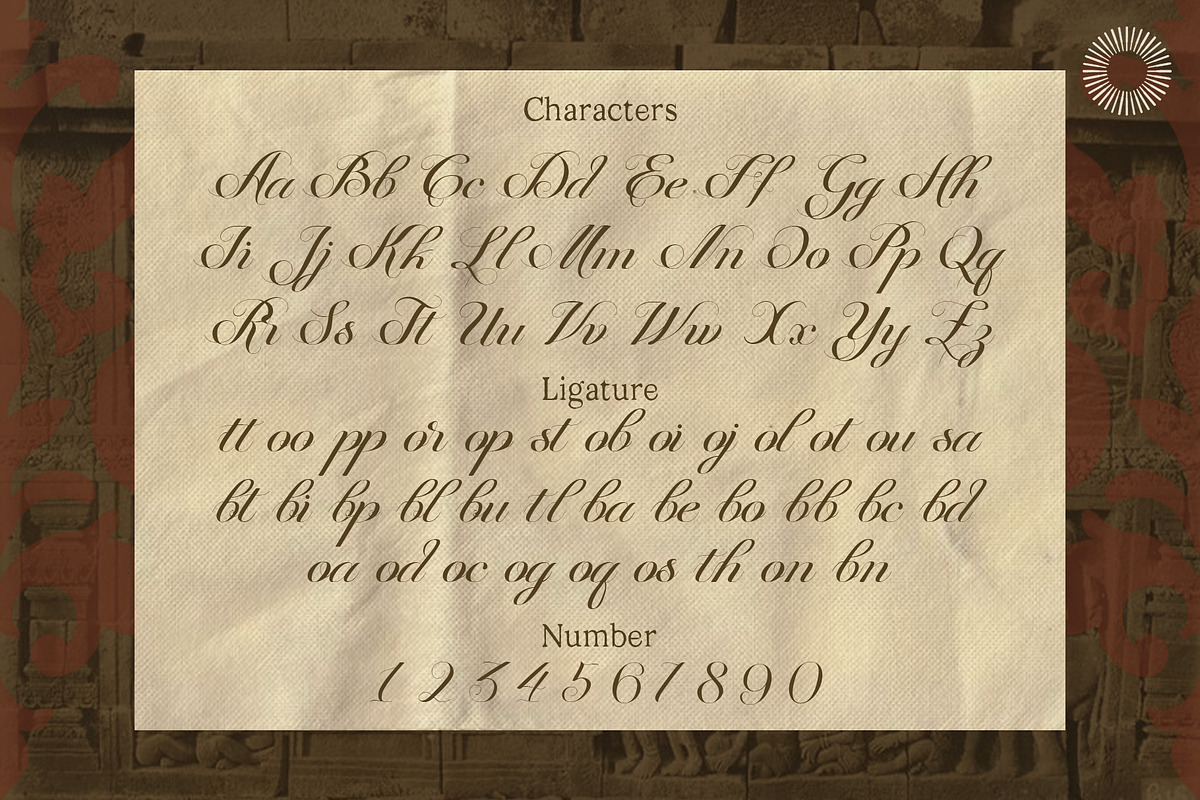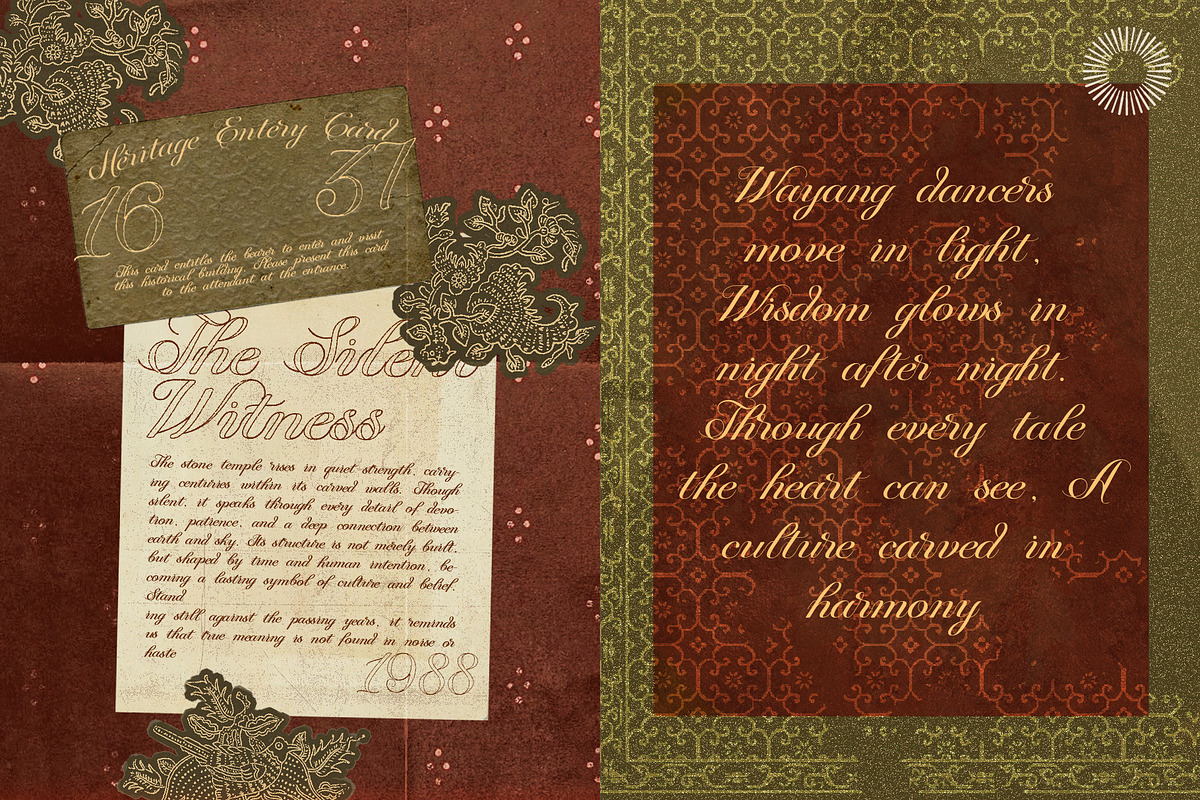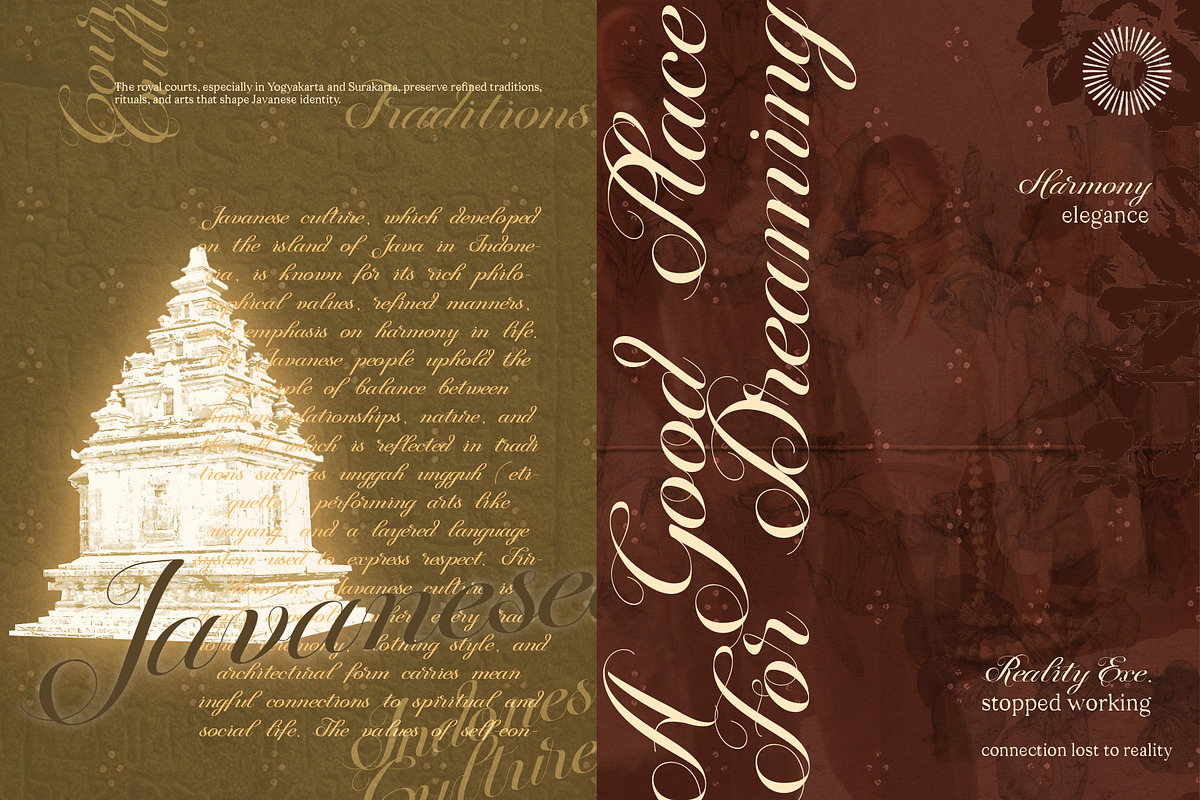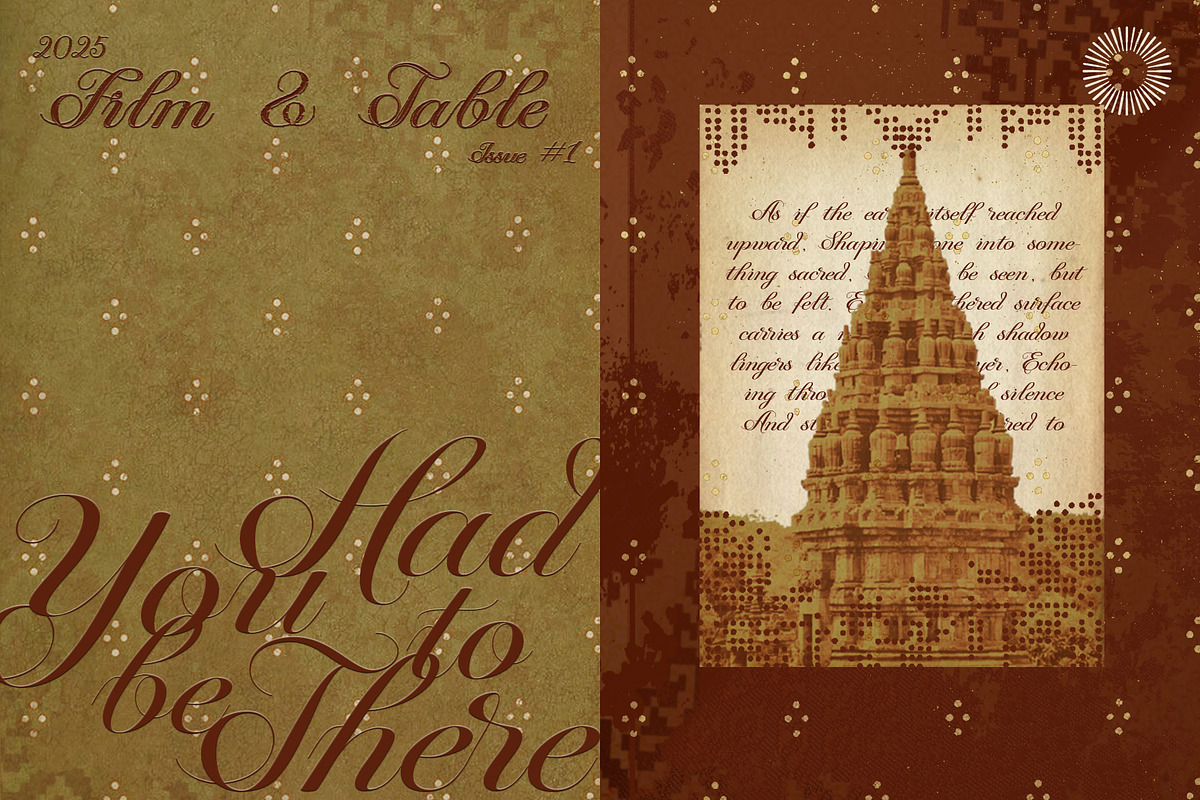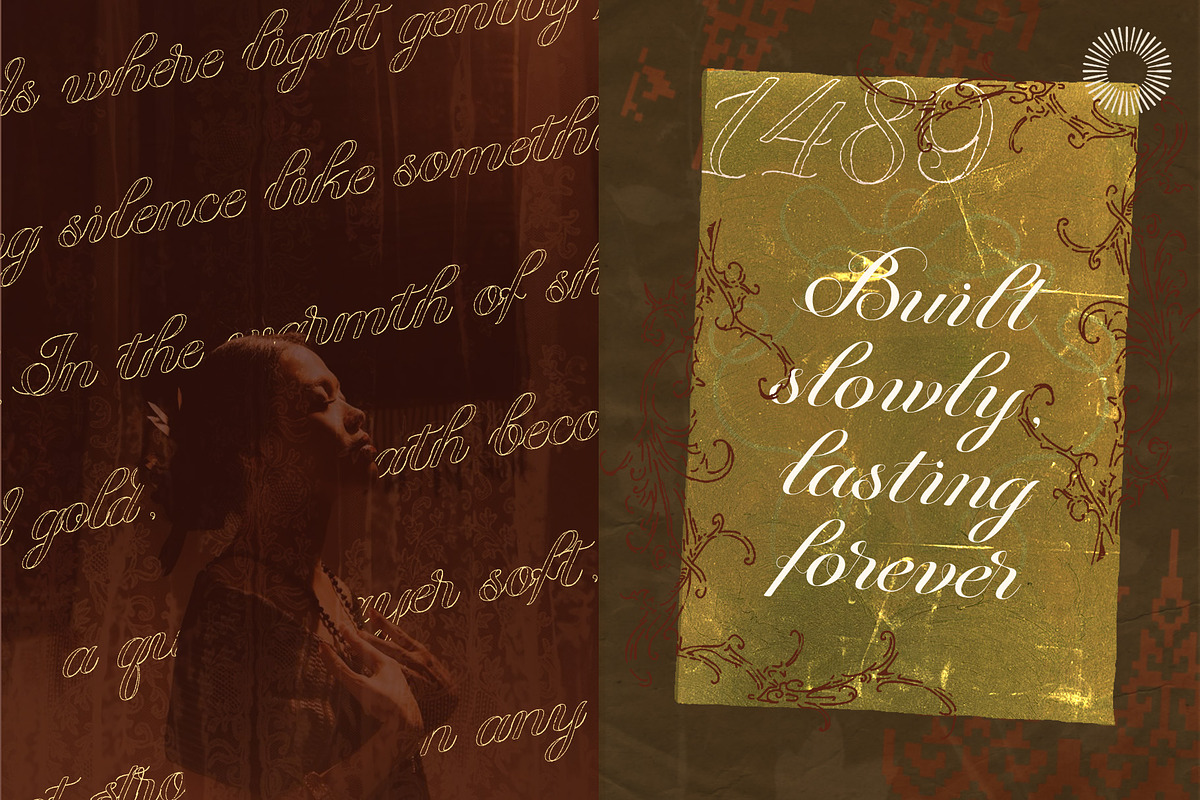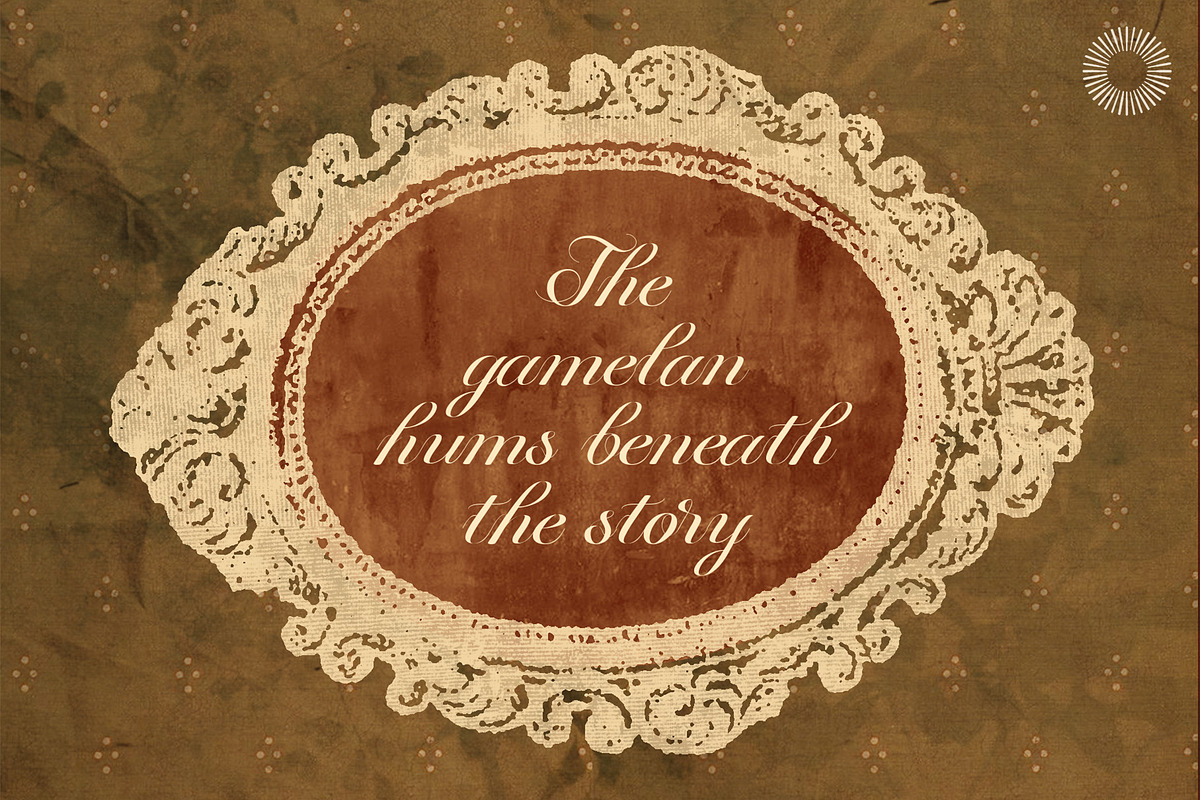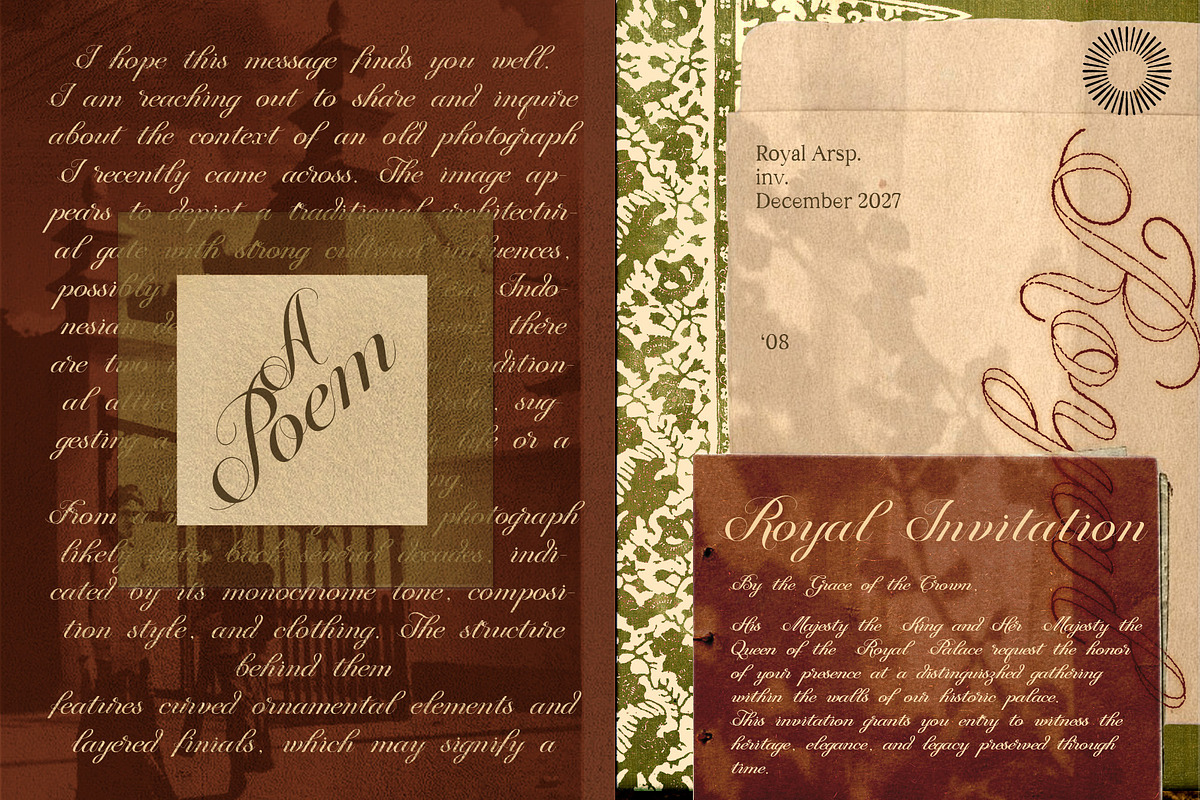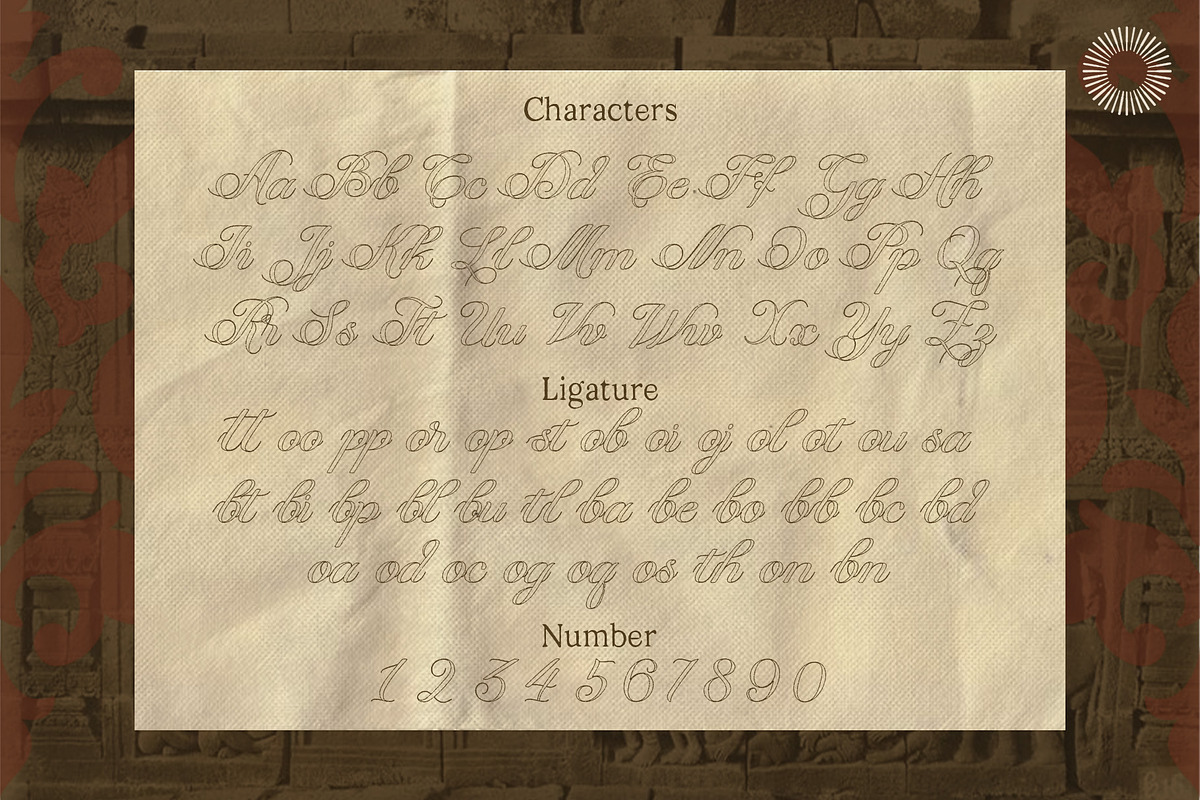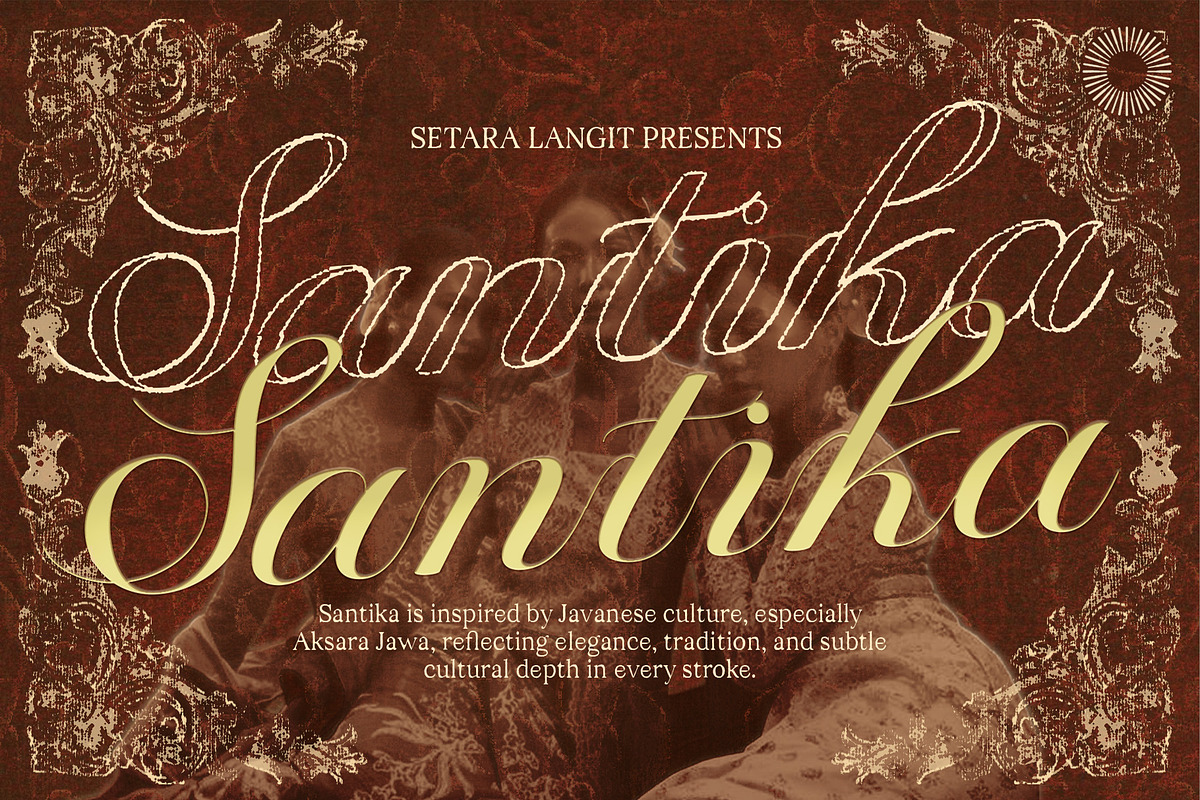
Santika - Javanese Cultural Script
Santika is an elegant script font inspired by the beauty of Javanese culture and the graceful forms of Aksara Jawa. Designed with flowing curves, refined proportions, and subtle ornamental details, it captures a sense of heritage, sophistication, and timeless artistry.
Blending traditional inspiration with contemporary usability, Santika offers a distinctive typographic voice that feels both luxurious and culturally rich. Every letterform reflects elegance and character, making it ideal for brands and projects seeking authenticity and refinement.
Whether used for premium branding, editorial design, packaging, or cultural storytelling, Santika brings warmth, tradition, and visual distinction to every composition.
Uppercase & lowercase letters
Elegant ligatures
Luxury branding, cultural projects, packaging, restaurants, hospitality brands, travel brands, editorial layouts, invitations, fashion campaigns, beauty brands, and premium visual identities.